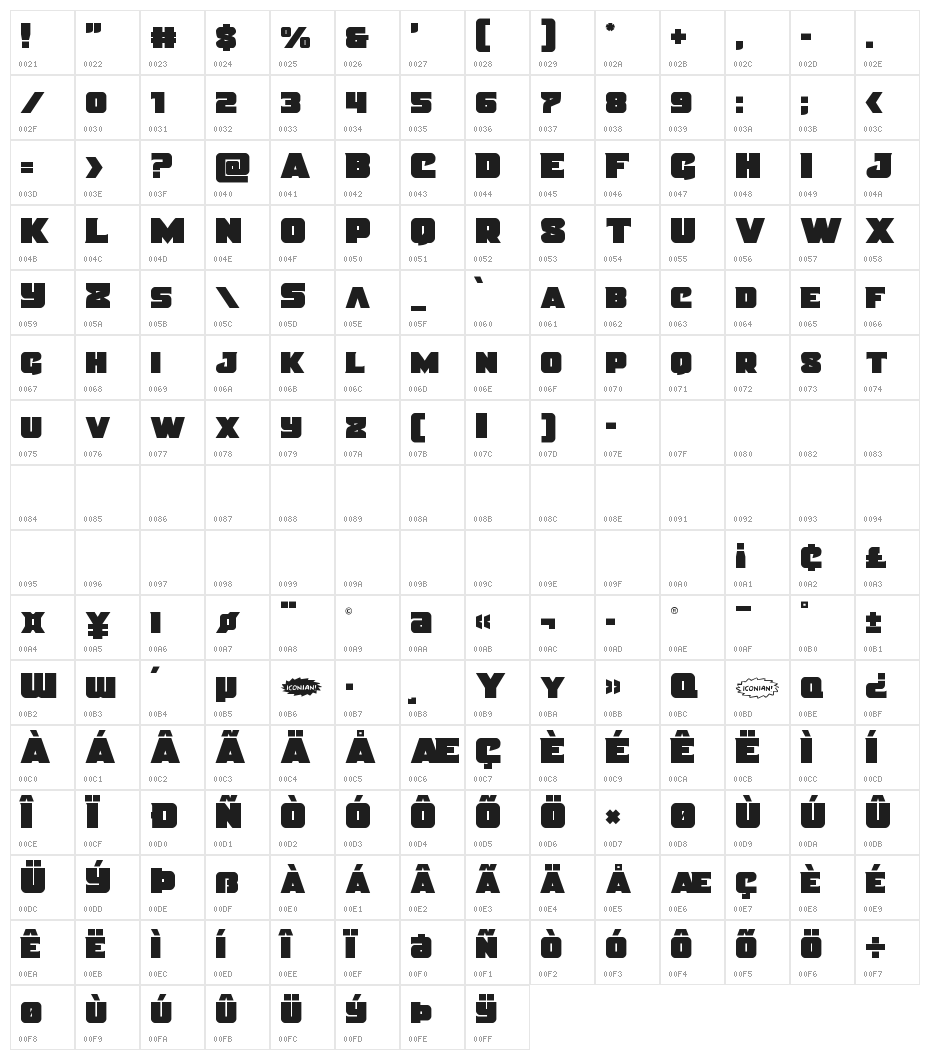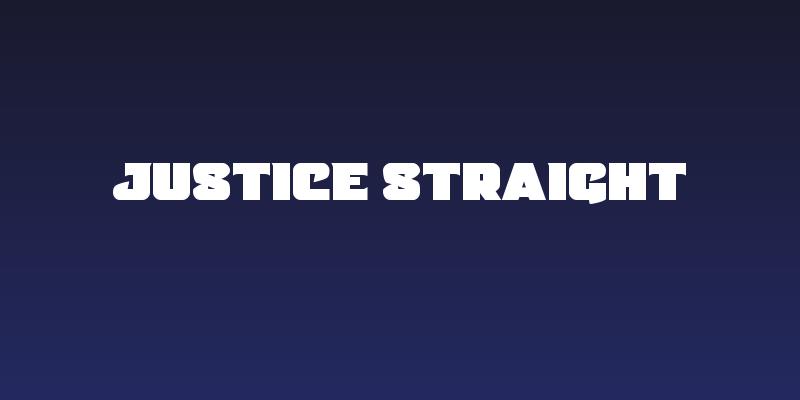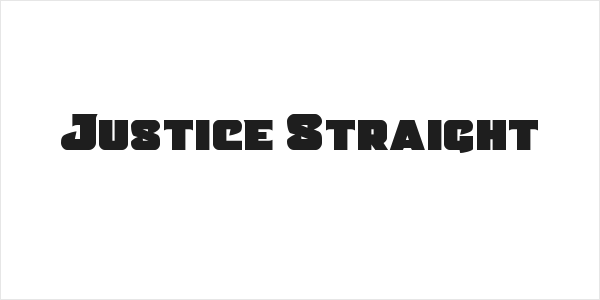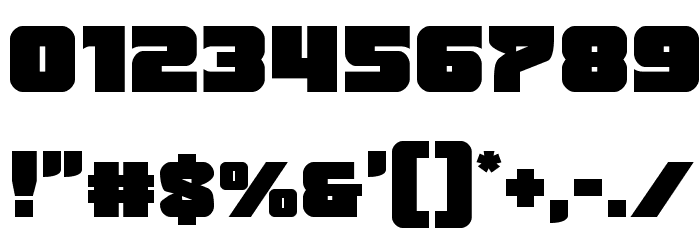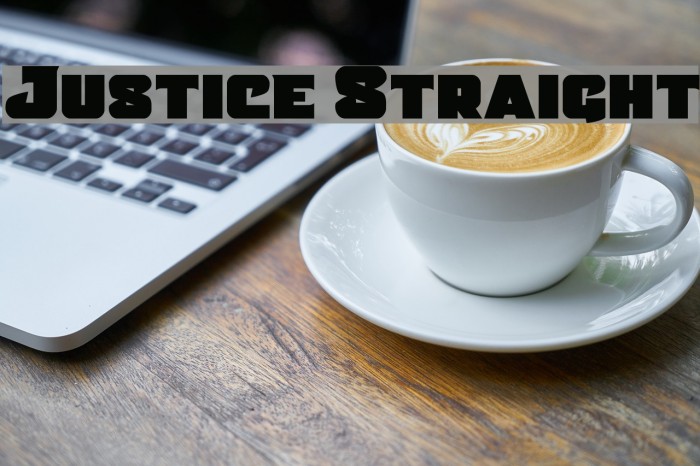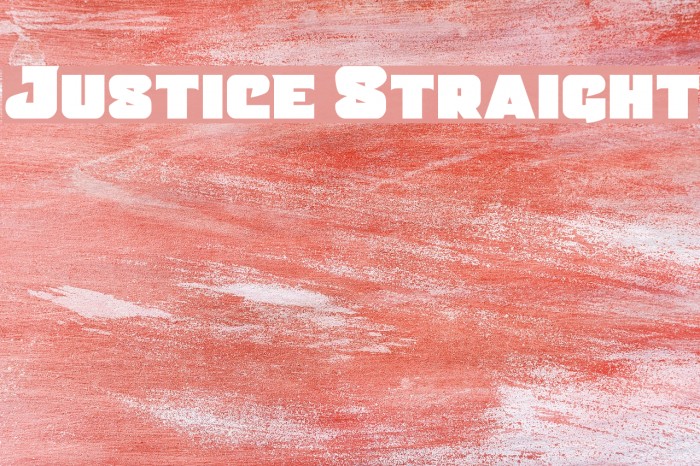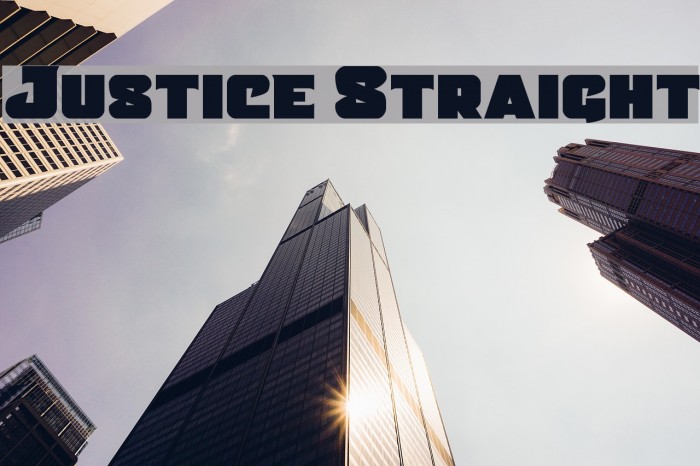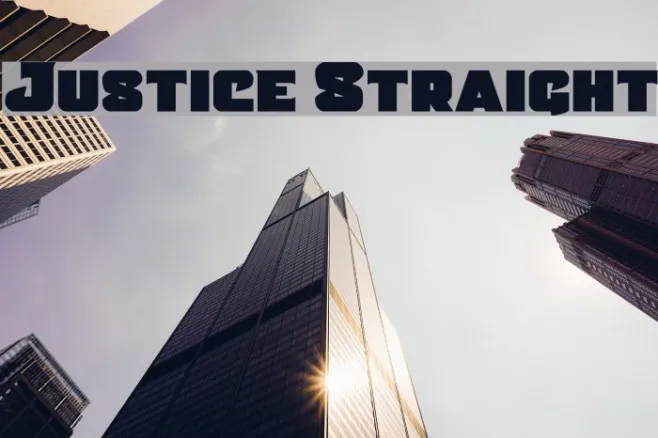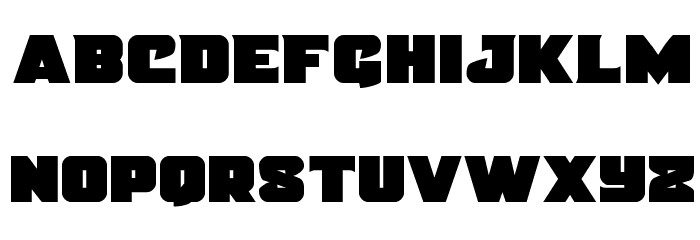
Justice Straight Font
Justice Straight Description
This font features a bold and impactful design with strong geometric shapes and a solid presence. The characters are constructed with thick, uniform strokes, giving them a robust and powerful appearance. The angular edges and sharp corners contribute to a modern and assertive style, making it ideal for attention-grabbing headlines and titles. The uppercase and lowercase letters maintain a consistent weight, ensuring readability while emphasizing strength. The numerals and special characters are equally bold, complementing the overall aesthetic. This font is perfect for projects that require a commanding and confident typeface.